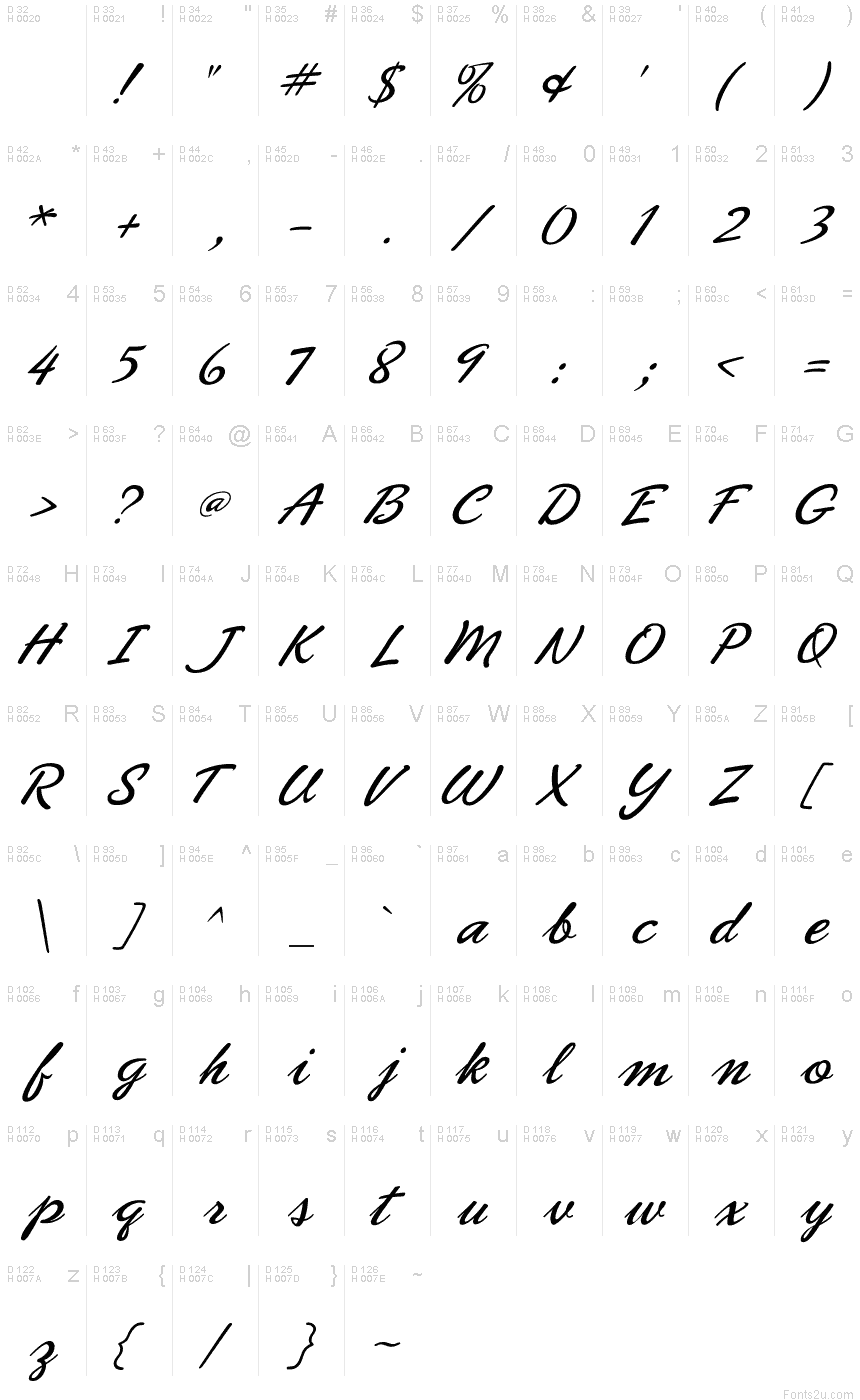
PhoenixScriptFLF
Phoenix Script FLF by Richard A. Ware is a free calligraphic script font with the broad, flowing sweep of formal penmanship. Its strongly slanted letters move through generous loops and long joining strokes, with pronounced shifts between fine lines and full downstrokes. The forms look graceful but lively, more like confident handwriting than careful engraving.
Romantic and ceremonial themes suit its sweeping motion, making it apt for wedding invitations, beauty packaging, and boutique branding. Fashion editorial covers gain a personal signature quality. In music artwork or dance event graphics, the looping script can echo movement and performance.